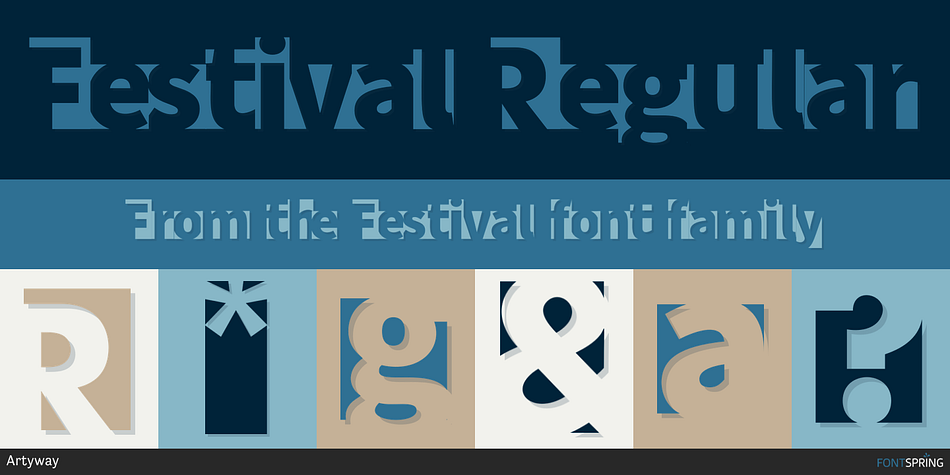
Festival Regular
Designed by Yehor Lisnyi, Festival is a novelty font family published by Artyway.
The Festiva font is Geometric Fun Display Font with Colorful Shapes for Bold Party Vibes
“Festival” is a lively, geometric font that mixes shaped negative space of letter, bold modern colors and Mexican or Indian Festive vibes.
Perfect for creating vibrant, energetic designs for parties, events, and entertainment branding, bright geometric logo, Mexican or Indian fest headline, birthday greeting card, school project design